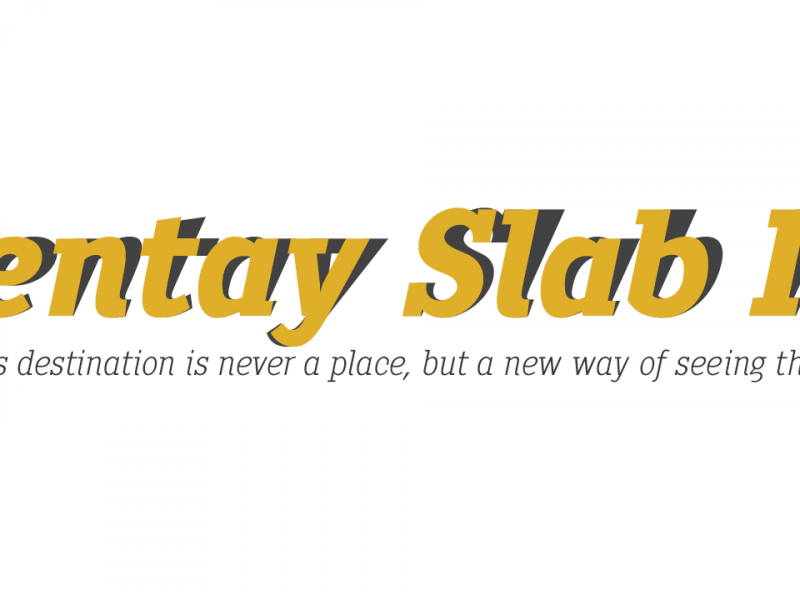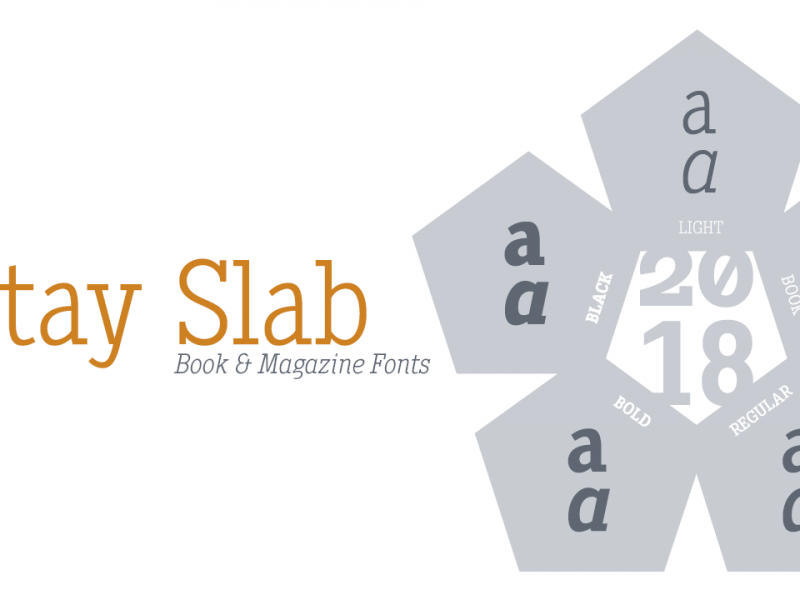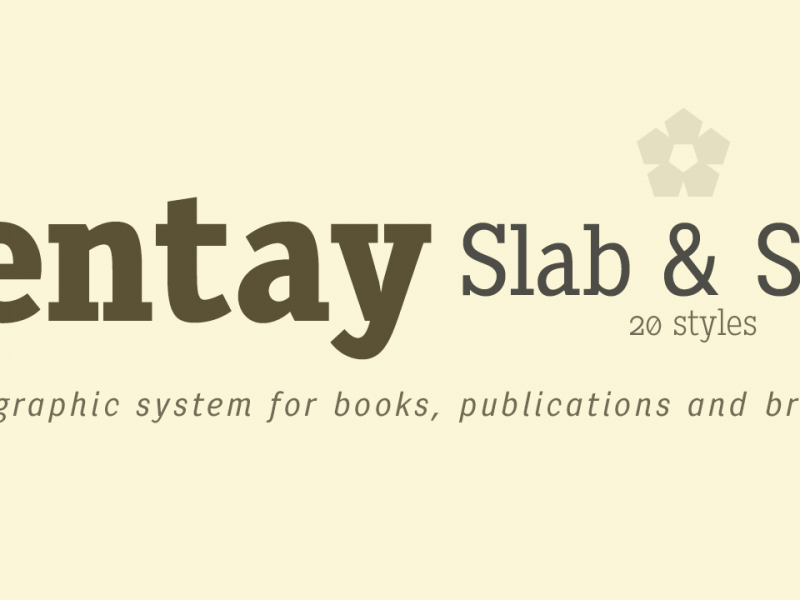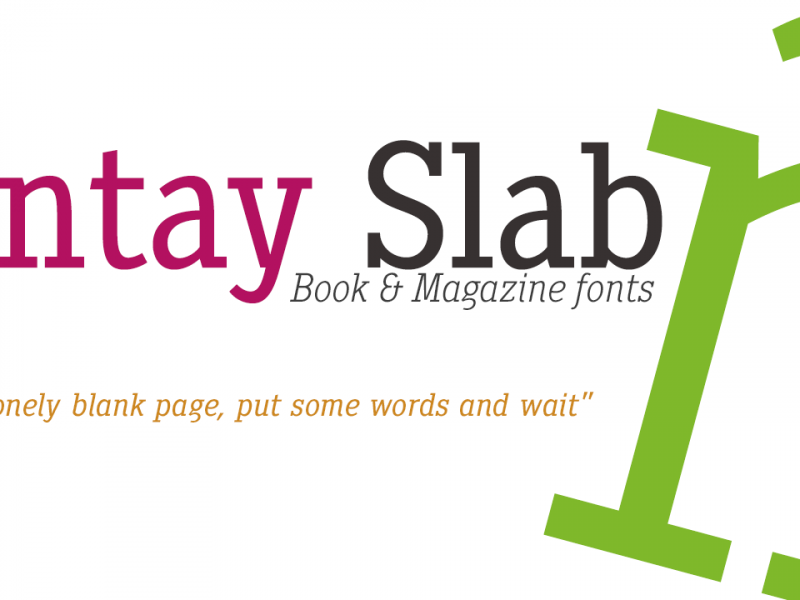
Pentay is a Slab Serif typeface family with 10 styles designed especially for editorial design and publications in general. The proportions of the font as well as the metrics and the kerning have been carefully calculated to obtain maximum readability. The fonts also have a complete set of lowercase alternatives and advanced OpenType features.